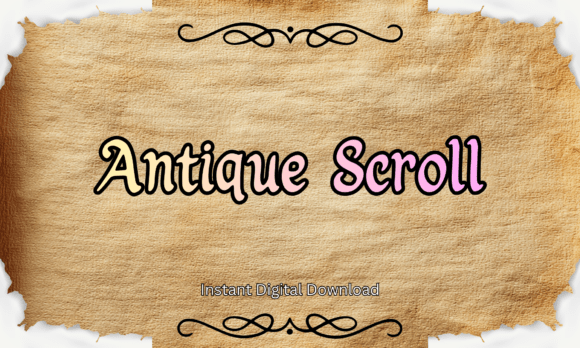
Introduction to Antique Scroll Font
Bring a soft vintage charm to your designs with Antique Scroll, a playful yet elegant handwritten display font inspired by aged parchment and classic scroll lettering.
With its rounded, flowing strokes and gentle curves, this font blends antique elegance with modern, cute aesthetics, making it perfect for a wide range of creative projects 💫 WHAT YOU WILL RECEIVE This is a digital download — no physical item will be shipped.
Key Features of Antique Scroll Font
Why Choose Antique Scroll Font?
Antique Scroll Font offers exceptional quality and versatility, making it a valuable addition to your design toolkit. Whether you’re creating for personal projects or commercial use, Antique Scroll Font delivers professional results.